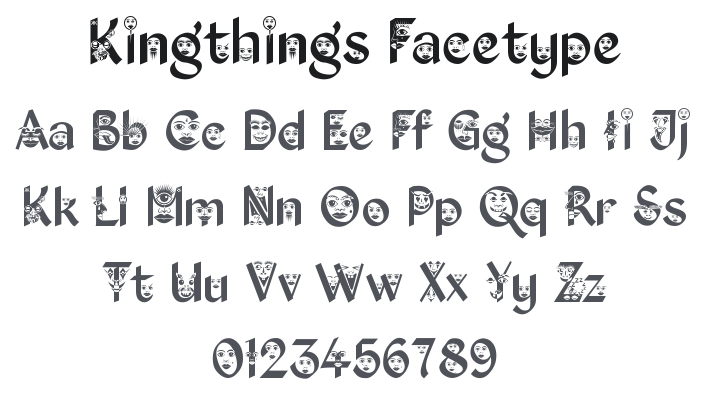
Kingthings Facetype Font
About Kingthings Facetype
I made this font having thought of the name - maybe not the usual way to go about font design. It is based upon Kingthings Exeter and can be used to embellish that font or just as decorated capitals. I enjoyed making this font and it was one of the quickest to do - i just got completely absorbed by the project. I hope you enjoy this daft font!